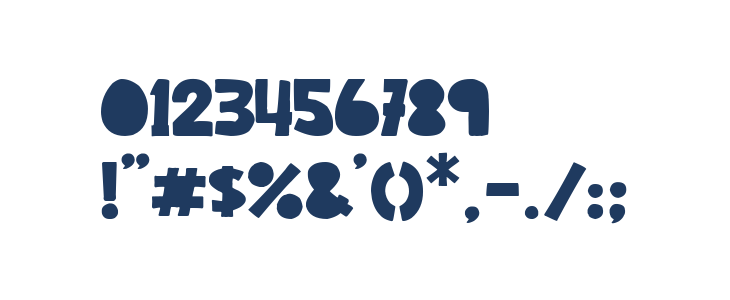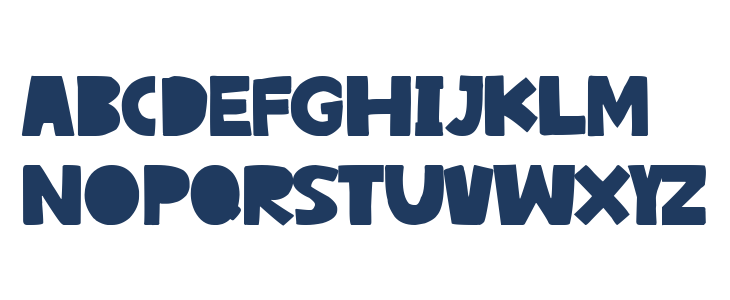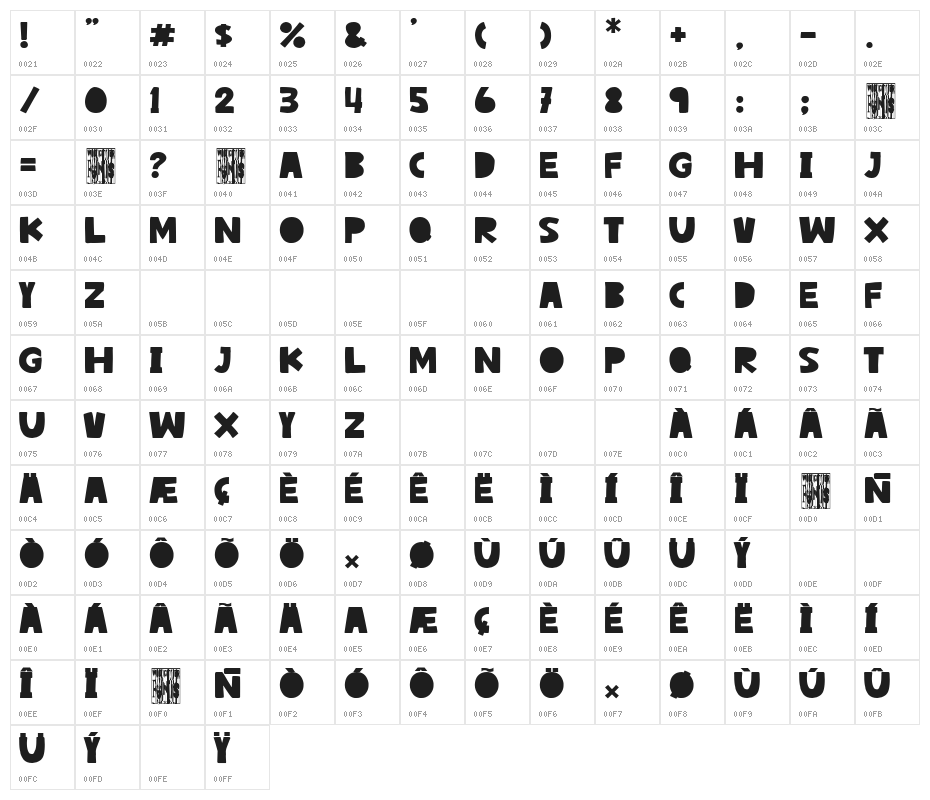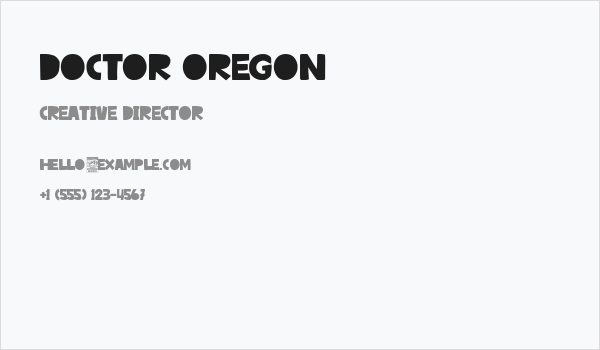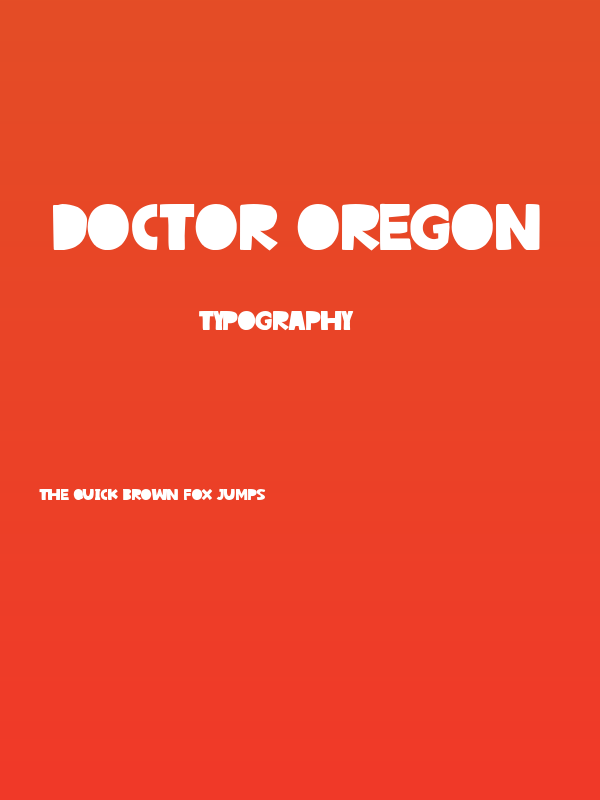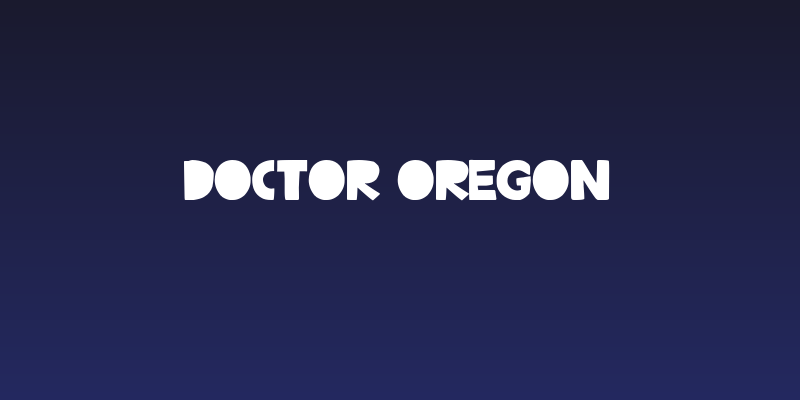
Doctor Oregon Font
Doctor Oregon Description
A bold, playful display font with irregular, chunky letterforms and a hand-cut appearance. The characters are wide with uneven edges, giving a whimsical and energetic feel. The font includes uppercase, lowercase, numerals, and a variety of punctuation and symbols.
| Width | Expanded |
| Overall Style | Playful, Decorative, Modern |
| Use Case | Headlines, Posters, Logos, Event Materials |
| Proposed Projects | Children's books, posters, party invitations, branding for playful products, event flyers. |